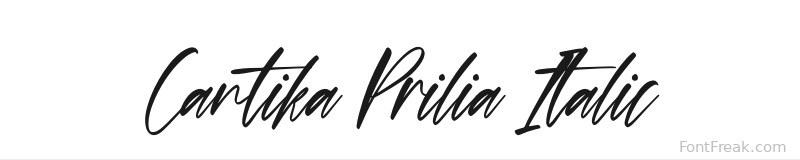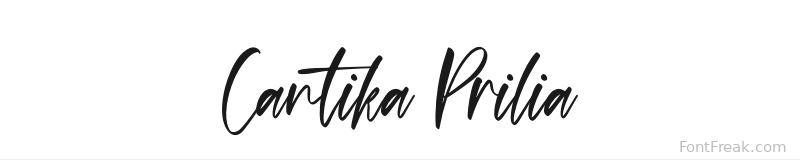
Cantika Prilia Italic
Cantika Prilia
Cantika Prilia Italic is a stunning script font designed by Perspectype Studio, released in 2021 under a freeware license. This font embodies elegance and sophistication, making it an excellent choice for various creative projects. With its flowing letterforms and graceful curves, Cantika Prilia Italic captures the essence of contemporary calligraphy while remaining highly legible. The stroke weight is moderately varied, providing a captivating contrast that enhances its artistic flair, while the generous spacing between characters ensures clarity and readability.
This versatile font is ideal for several applications, particularly in creative and formal settings. It shines in wedding invitations, where its romantic style adds a personal touch. Additionally, it works beautifully for branding materials, such as logos and business cards, creating a memorable impression for small business owners. Restaurant menus also benefit from its inviting aesthetic, enticing diners with a sense of warmth and sophistication. Furthermore, it can elevate social media graphics and content creation, allowing influencers and content creators to convey their messages with style.
The target audience for Cantika Prilia Italic includes graphic designers looking for a unique typeface to enhance their projects, small business owners aiming to establish a distinctive brand identity, and content creators seeking to add a touch of elegance to their visuals. The font's artistic qualities and versatility make it a valuable addition to any designer's toolkit.
What sets the Cantika Prilia Italic font apart is its perfect blend of modernity and tradition, offering a fresh take on classic script styles. Its graceful curves and elegant strokes make it a standout choice for anyone looking to make their designs memorable. For those interested, the Cantika Prilia Italic font free download is a fantastic opportunity to incorporate this exquisite typeface into your projects.